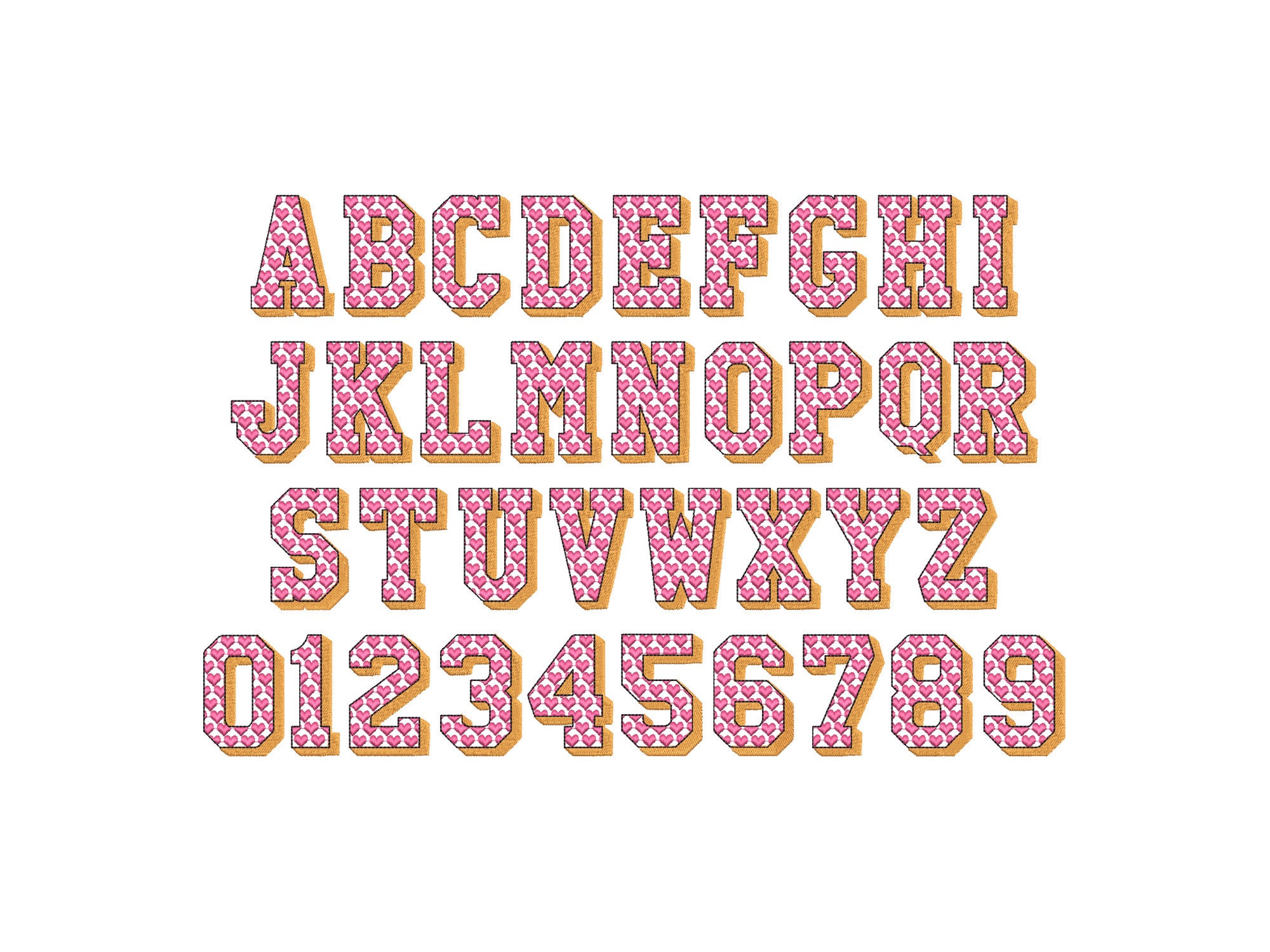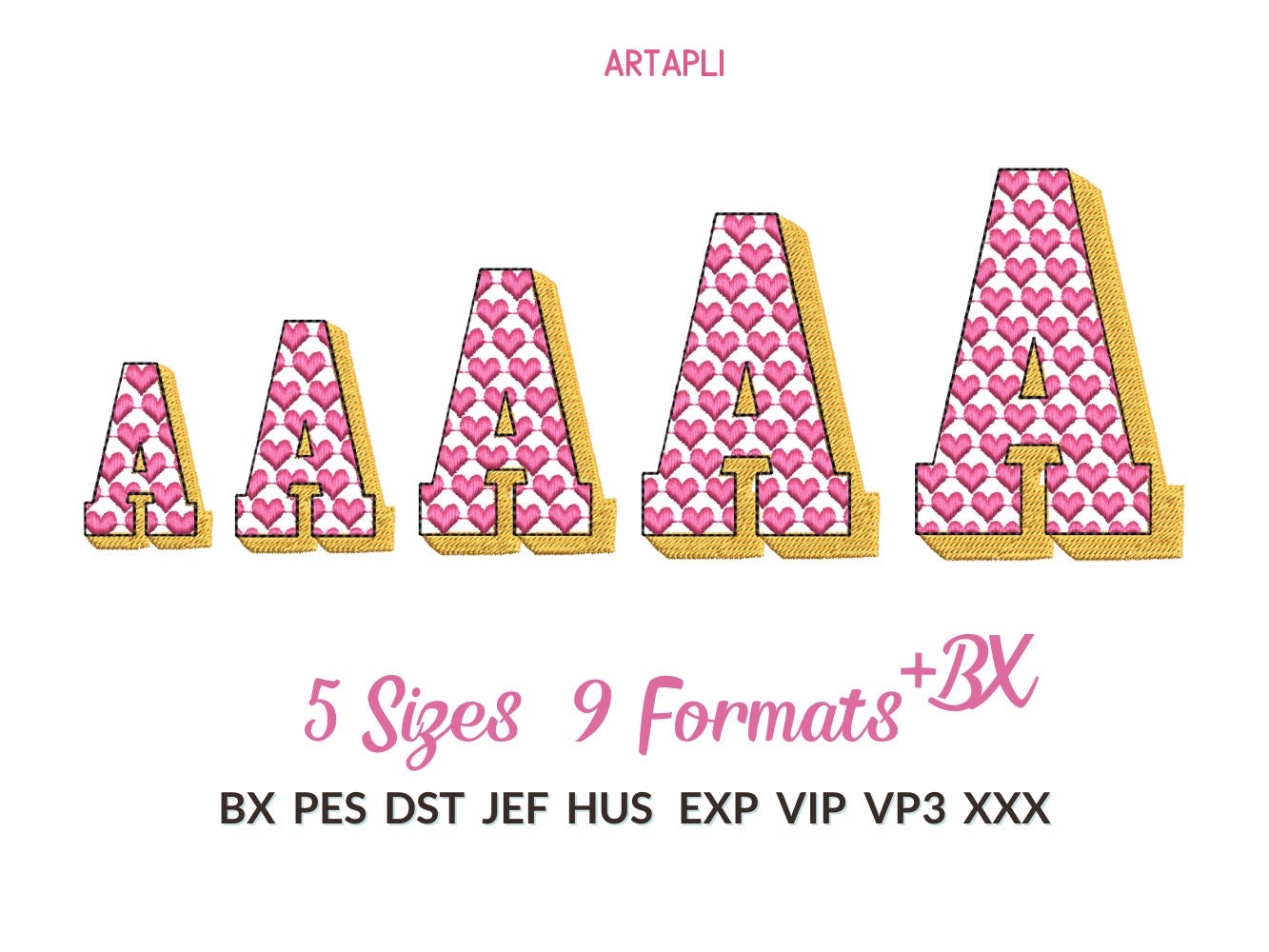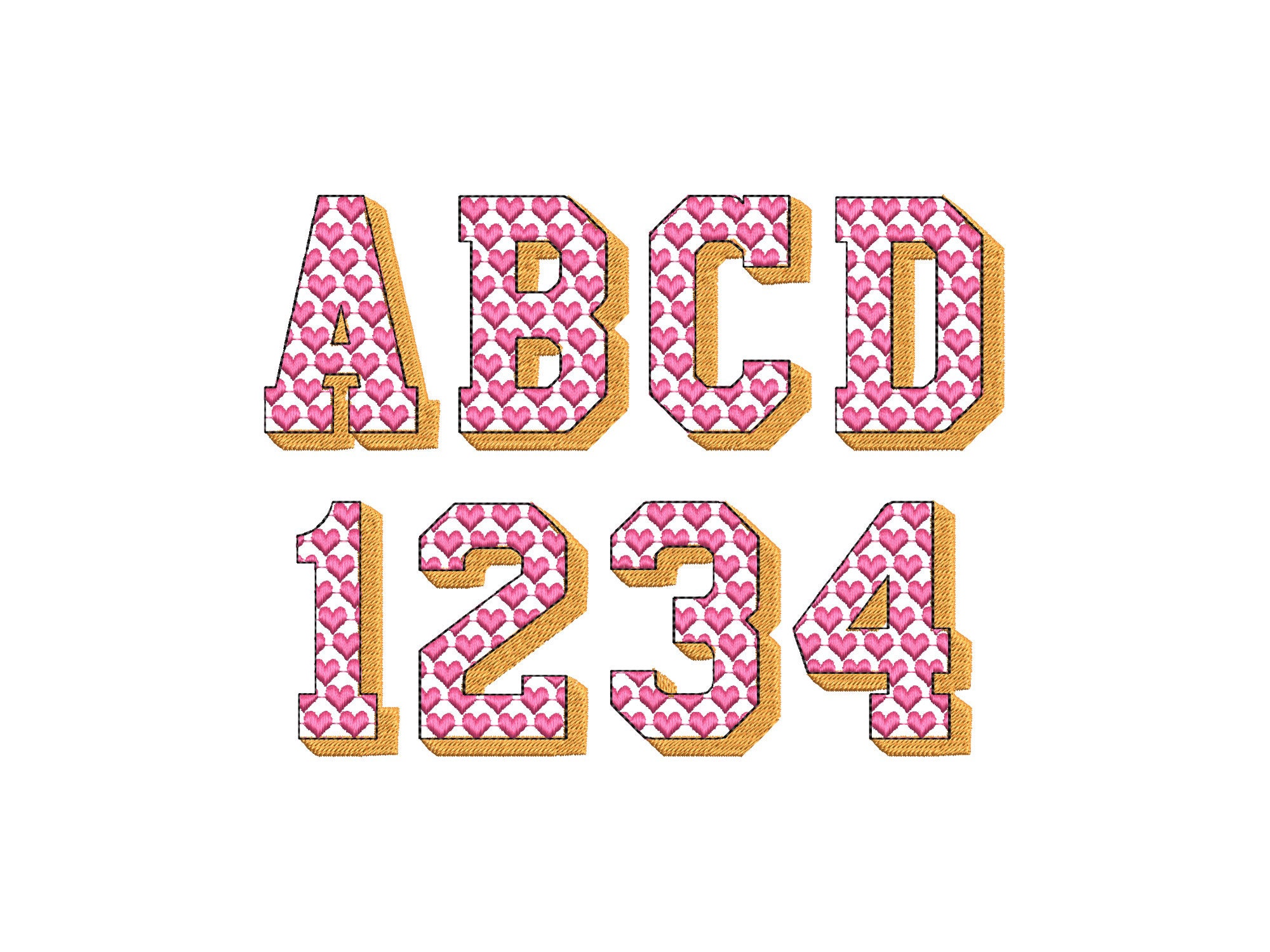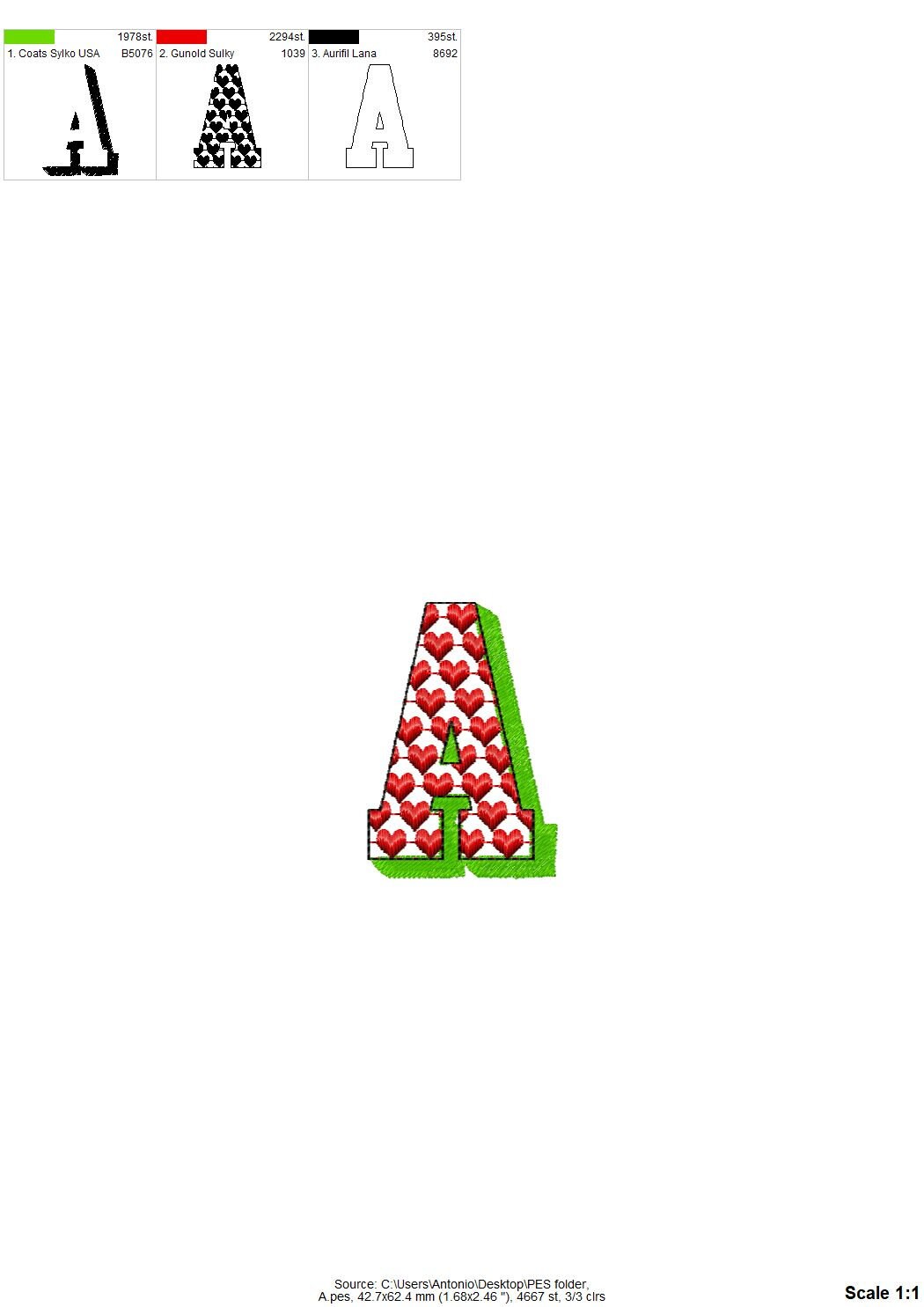
Heart Shadow Font mini Hearts patterned Alphabet letters numbers machine embroidery designs lovely shadowed font monogram in assorted sizes
The font is transparent and has a satin stitch hearts, a fill stitch shadow, and a bean stitch outline.
Whole alphabet uppercase letters A-Z, and numbers 0-9.